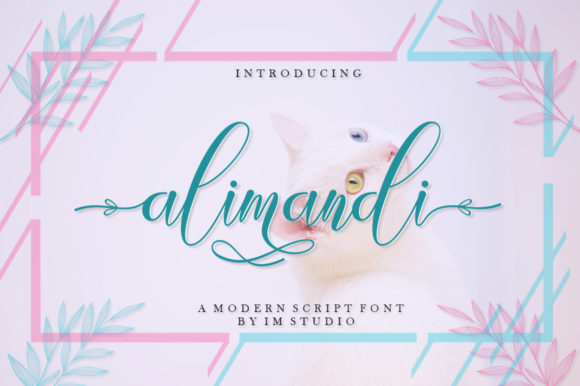
Alimandi, an enchanting handwritten font creation by the skilled hands at IM Studio, beckons you to delve into its world of warmth and artistry. This captivating script font exudes a lighthearted spirit, its delicate lines and graceful curves evoking the beauty of hand-crafted creations. Let Alimandi ignite your imagination and add a touch of personal flair to your designs!
Whether you seek to capture the essence of handwritten letters in your digital creations or adorn your designs with a touch of heartfelt charm, Alimandi is your perfect companion. Its versatility extends from heartfelt invitations to enchanting logos, ensuring that your message captivates and connects with your audience.
With Alimandi, your designs will radiate a sense of authenticity and warmth, inviting your audience to immerse themselves in your creations. Its effortless flow and elegant strokes create an allure that will make your designs stand out and leave a lasting impression.
Embrace the beauty of handcrafted artistry with Alimandi, the font that transforms your designs into expressions of heartfelt charm and creativity. Let its lighthearted spirit inspire your imagination and elevate your designs to new heights!